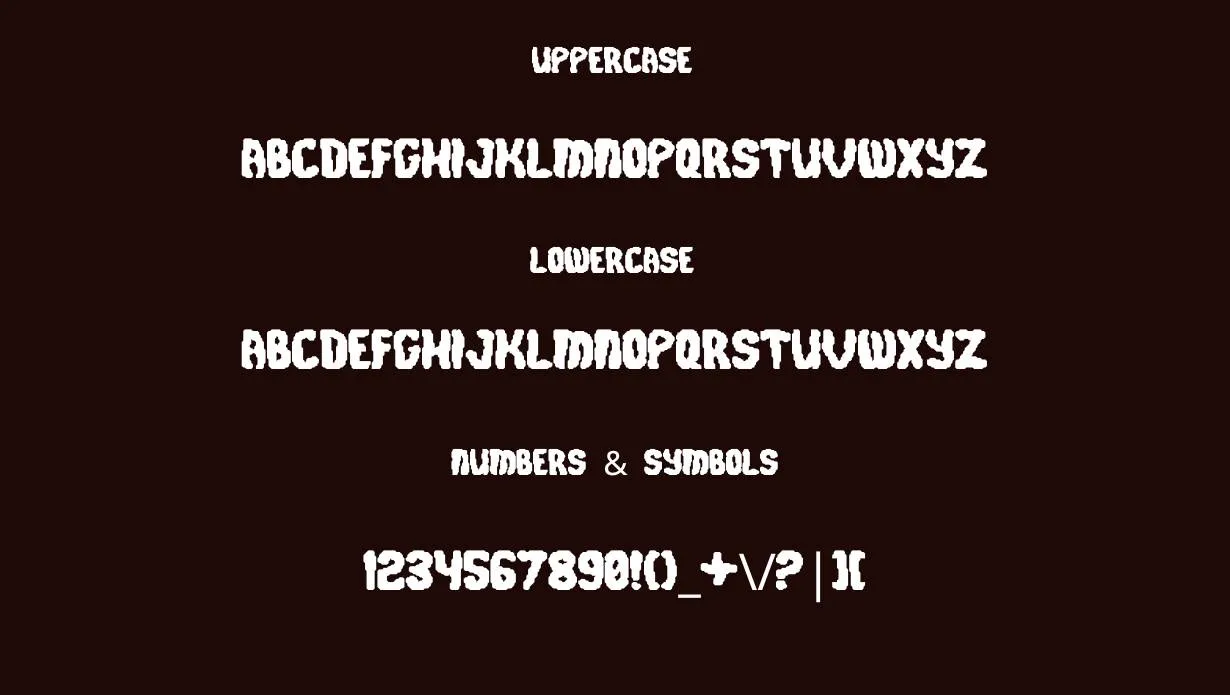
The Cursed Law font serves as a mysterious supporter for your words. Its bold and enigmatic design makes it ideal for creating attention-grabbing legal posters, designing captivating mystery novel covers, or adding a touch of suspense to event invitations.
With a slightly condensed width and heavyweight, this font demands attention, making it ideal for projects that require a touch of darkness and intrigue. Imagine using the Cursed Law font for escape room promotional materials, immersing participants in a world of legal mysteries.